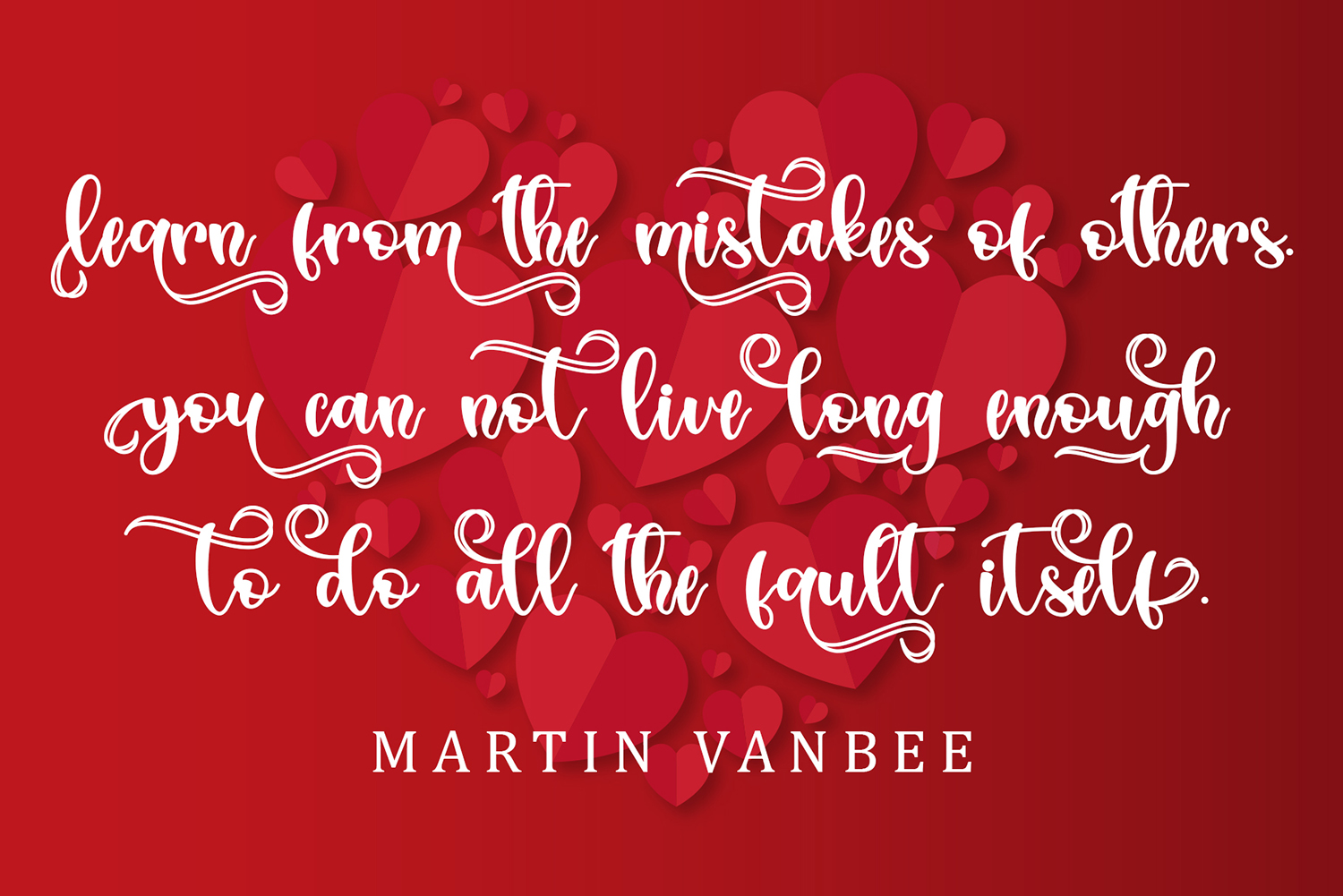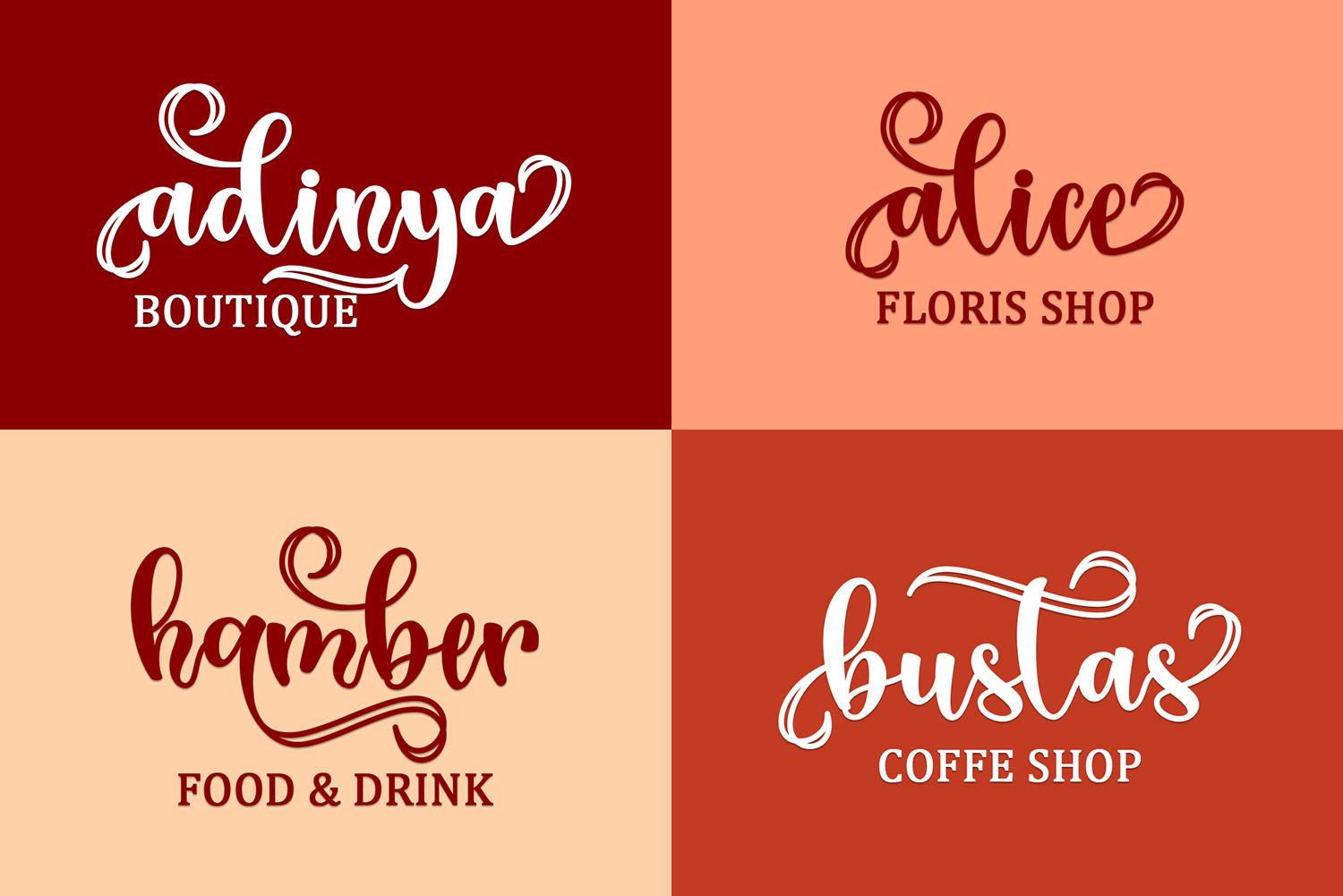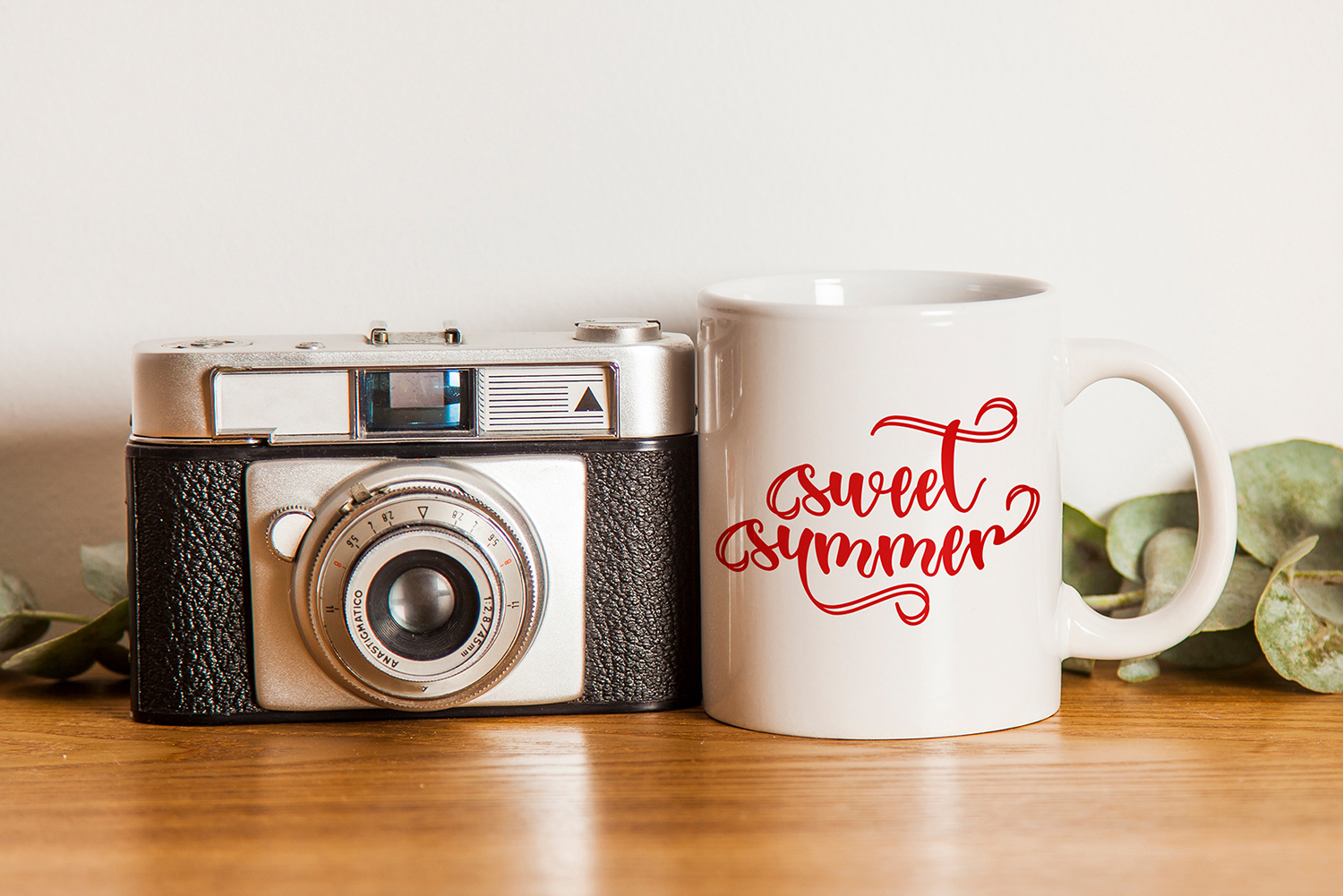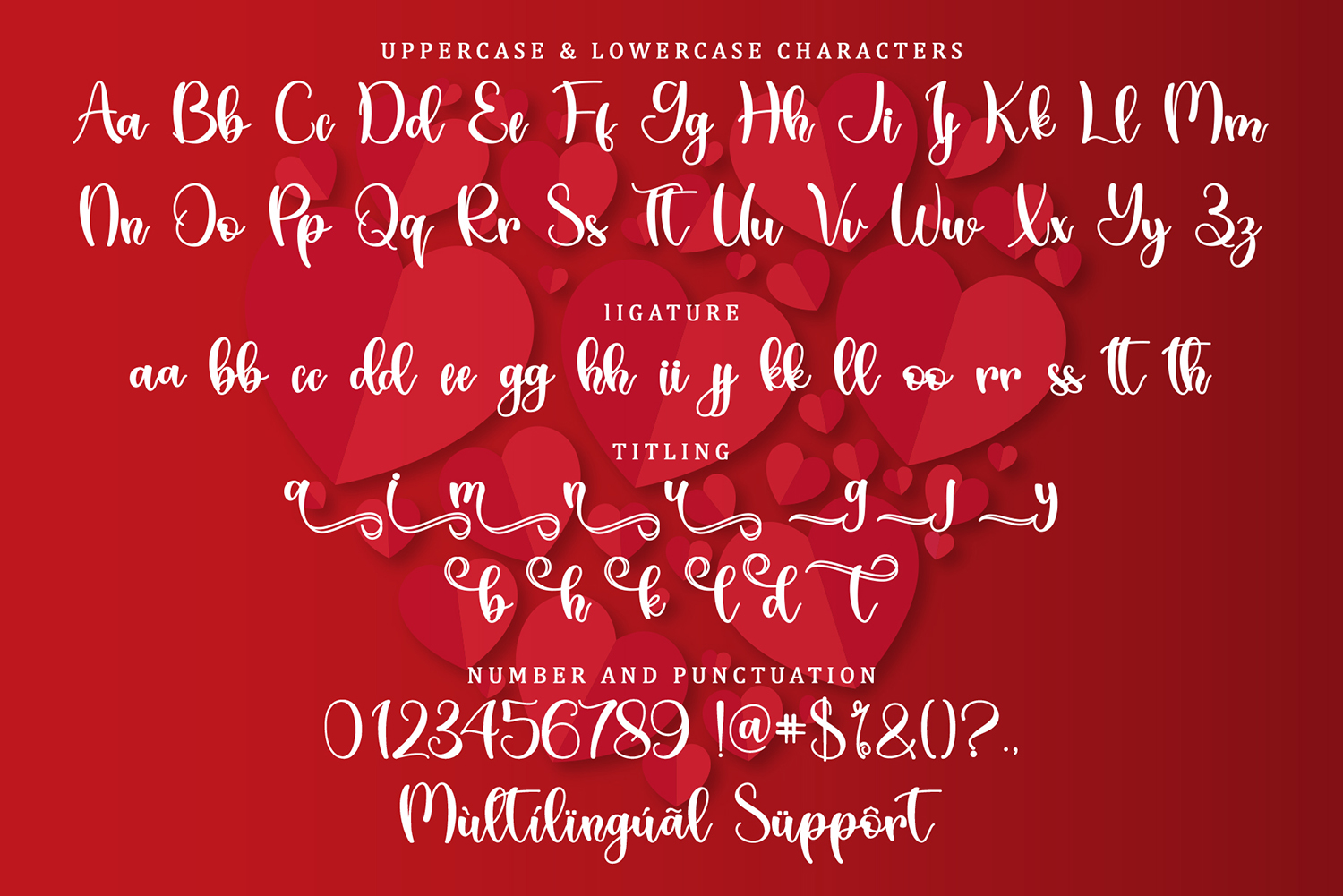
Lovely Summer Free Font
Lovely Summer Free Font, a sweet and romantic calligraphy typeface, showcases characters gracefully dancing along the baseline. Elevate any design project with a touch of luxury and charm. This free typeface was designed by a talentedΒ Alif Ryan Zulfikar. If you like it don’t forget to check out the full version.